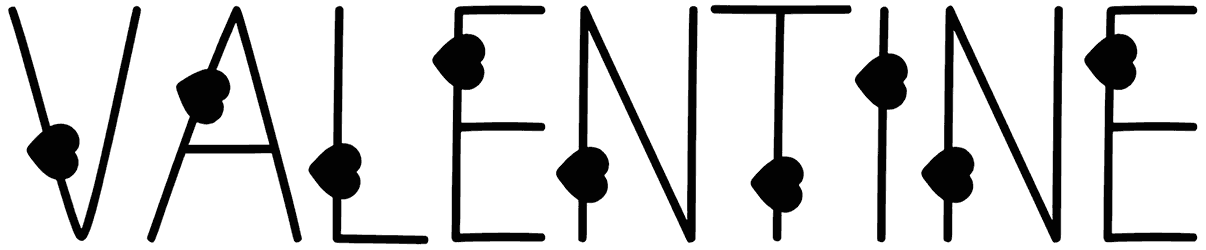
The goal of the decorative font, Kg Bless Your Heart, is to raise the bar for audience participation. If you want your designs for comic books, kids’ party posters, etc. and anywhere else you require grunge effects to stick out.
Despite the absence of lowercase letters, this heart font‘s trendy and engaging appearance can be used to create a lively design. If you want to utilize this font with others from our vast collection, feel free to do so!
Thanks! Use ALL CAPS for even lettering or eVeRy OtHeR letter uppercase/lowercase alternating for bouncy letters.